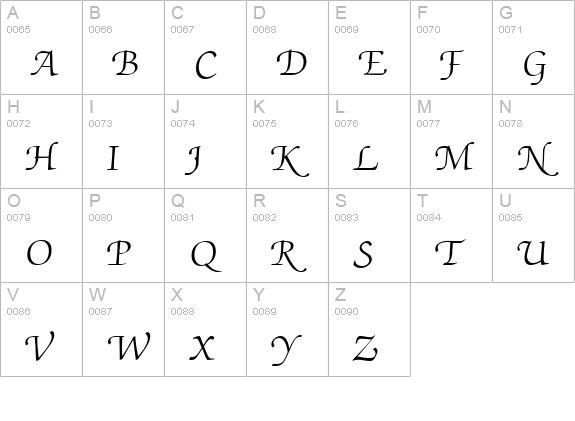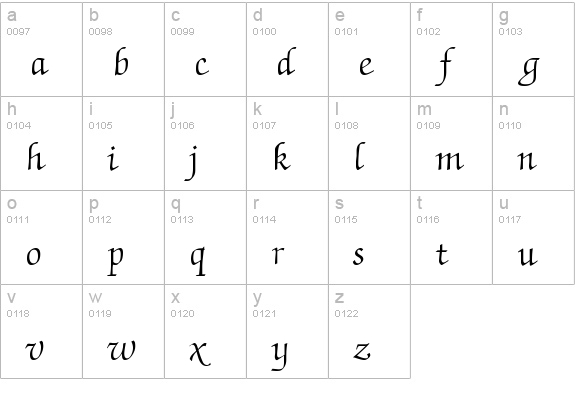
ZabriskieScriptSwash-Regular Font Details
ZabriskieScriptSwash-Regular is the standard, neutral variant in the ZabriskieScriptSwash typeface family \xE2\x80\x94 well suited to general body text, paragraphs, and standard typographic work.
ZabriskieScriptSwash-Regular font is a beautifully crafted typeface that exudes elegance and sophistication. Its intricate swashes and flourishes add a touch of charm to any design project. With its graceful curves and stylish appeal, this font is perfect for creating stunning invitations, wedding stationery, logos, and more. The best part about ZabriskieScriptSwash-Regular font is that it is completely free to download at FontsMarket.com. You can easily access this exquisite typeface and elevate your designs without any cost. Whether you are a professional graphic designer or a DIY enthusiast, this font is a versatile and inspiring addition to your font collection. Embrace the beauty and versatility of ZabriskieScriptSwash-Regular font and let your creativity shine with every project you undertake. Download it today and start creating stunning designs that leave a lasting impression.